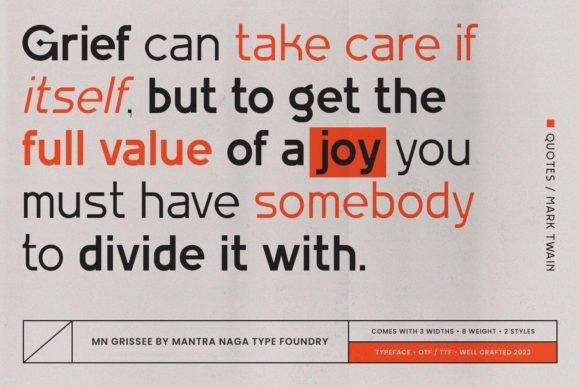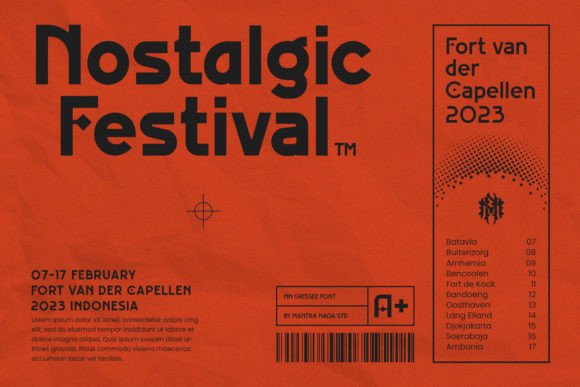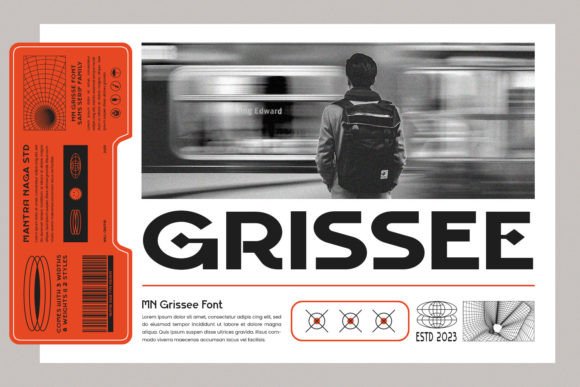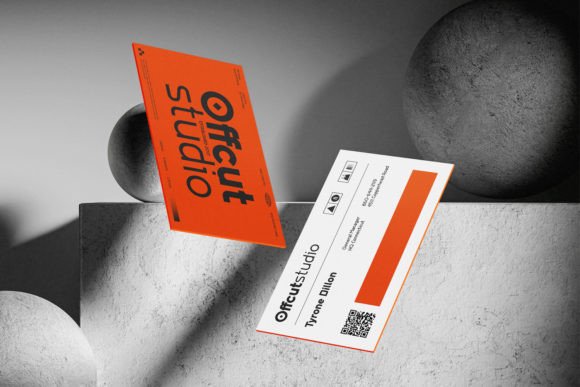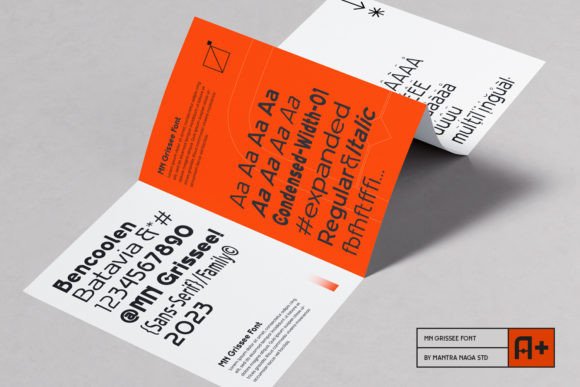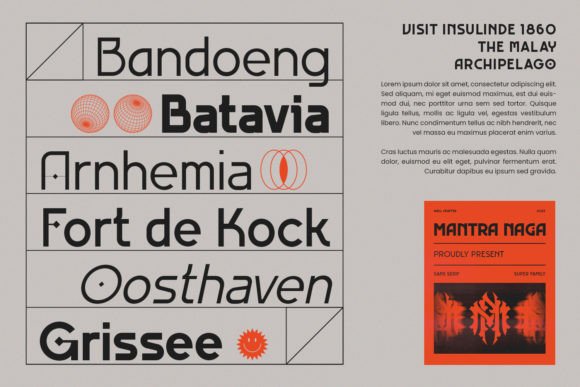
The Grissee Font: A Modern Sans Serif for Minimalist Designs
I still remember the frustration of working on a project, hours spent searching for the perfect font, only to end up with something that just didn’t feel right. My client was looking for a clean, modern sans serif that would convey their brand’s sophistication and simplicity. I tried font after font, but nothing seemed to fit. That was until I stumbled upon the Grissee font. ✨
Its clean lines and balanced proportions immediately caught my attention. I knew I had found the one. The Grissee font combines simplicity with sophistication, making it perfect for any minimalist design. In this article, I’ll share my experience with the Grissee font, its features, and how to make the most of it in your designs.
An Honest Review of Grissee Font
- ✅ Clean and modern sans serif design
- ✨ Timeless appeal that works well for both digital and print media
- 💡 Versatile and can be used for a range of projects, from branding and advertising to editorial design and web design
- 👍 Highly legible, even at small font sizes
While the Grissee font is excellent, there are a few things to keep in mind: 🤔
- ⚠️ Limited number of stylistic alternates, which may not offer as much flexibility for certain designs
- 🤔 May not be the best choice for body text in very long documents, as its clean lines can sometimes make it feel a bit too light
The Story Behind Grissee Font
The Grissee font was designed with the goal of creating a clean and modern sans serif that would meet the needs of designers and brands. Inspired by the simplicity and sophistication of urban landscapes, the Grissee font is the result of careful craftsmanship and attention to detail. Its timeless appeal and versatility have made it a popular choice among designers.
Q: What type of projects is the Grissee font best suited for?
A: The Grissee font is versatile and can be used for a range of projects, including branding, advertising, editorial design, and web design.
Q: Is the Grissee font suitable for body text?
A: Yes, the Grissee font is highly legible and can be used for body text, although it may not be the best choice for very long documents.
Q: Does the Grissee font support OpenType features?
A: Yes, the Grissee font supports OpenType features, including ligatures and stylistic alternates, which can add visual interest to your designs.